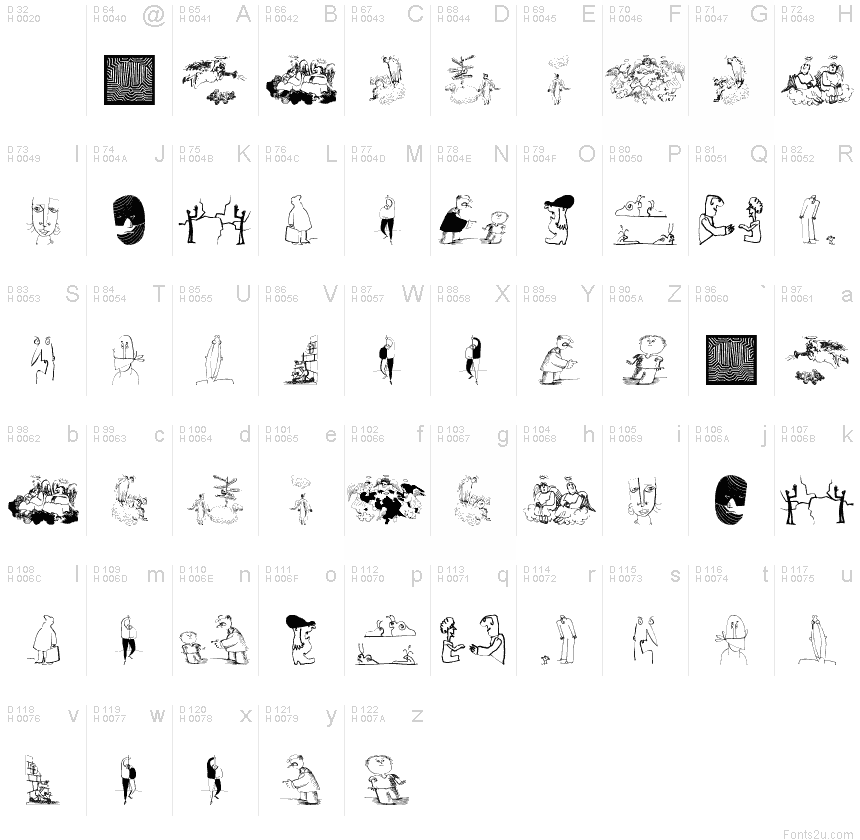
ExcuseMe by M. Klein is a free cartoon dingbat font filled with lanky, loosely sketched human figures and odd little comic scenes. The drawings use wiry outlines, exaggerated noses, stooped poses, and sudden patches of solid fill. Wisps of cloud and scratchy shading around some characters add a restless pen-and-ink texture.
These figures can become part of an illustration rather than serving as ordinary symbols, with each one reading as a tiny comic incident of its own. Awkward gestures suit children's books and offbeat event graphics. The collection is most at home with absurd comedy, eccentric characters, and gently surreal storytelling.